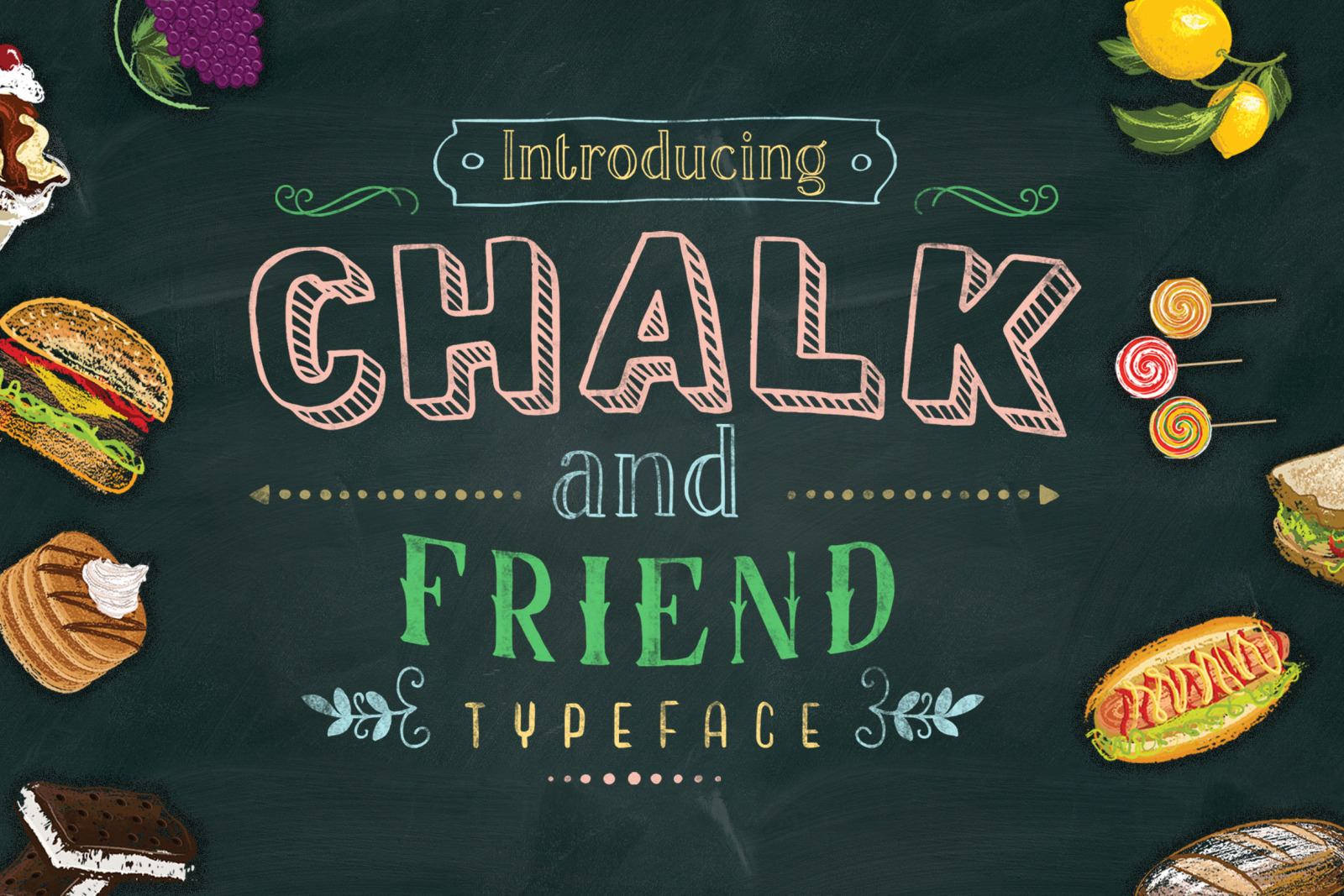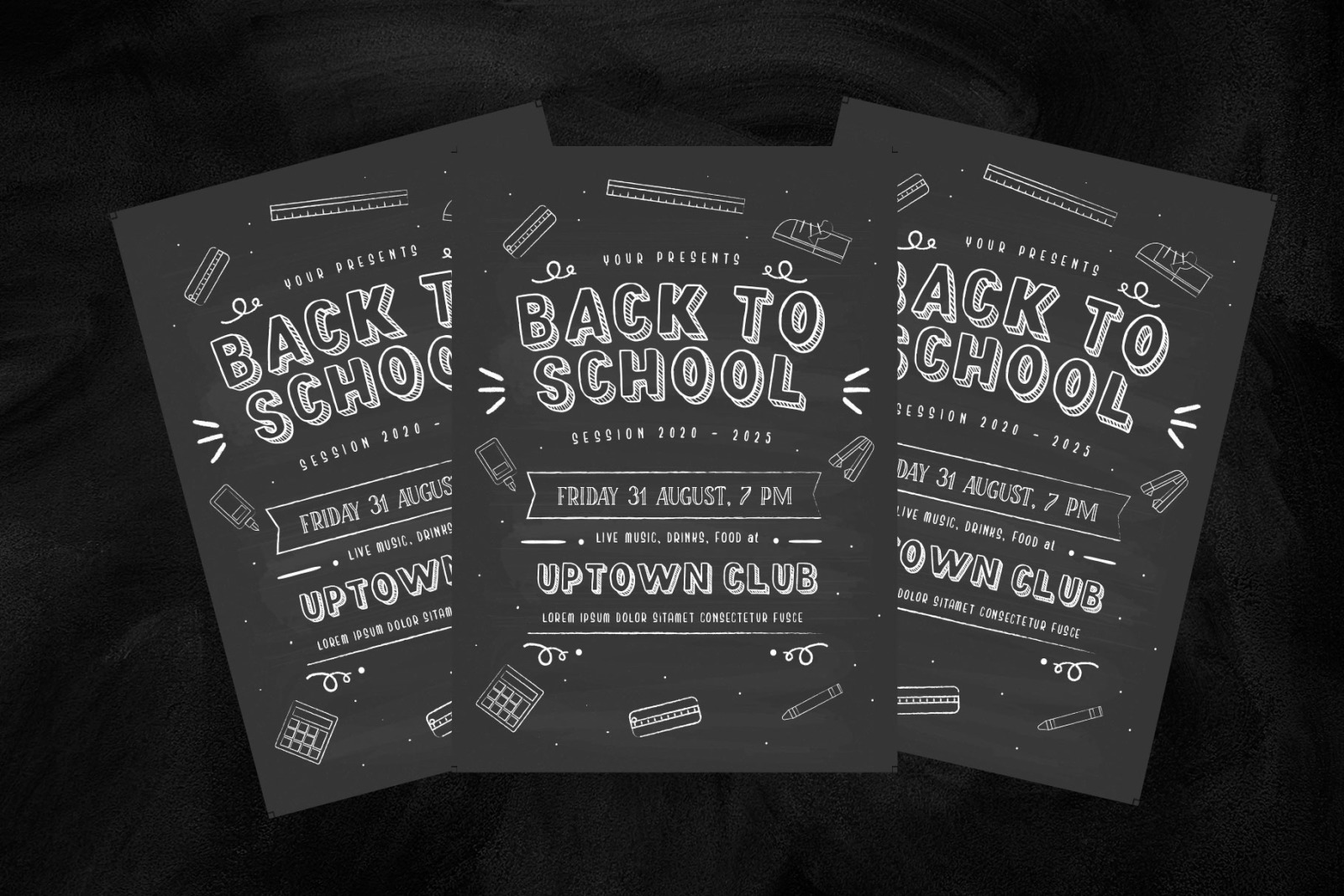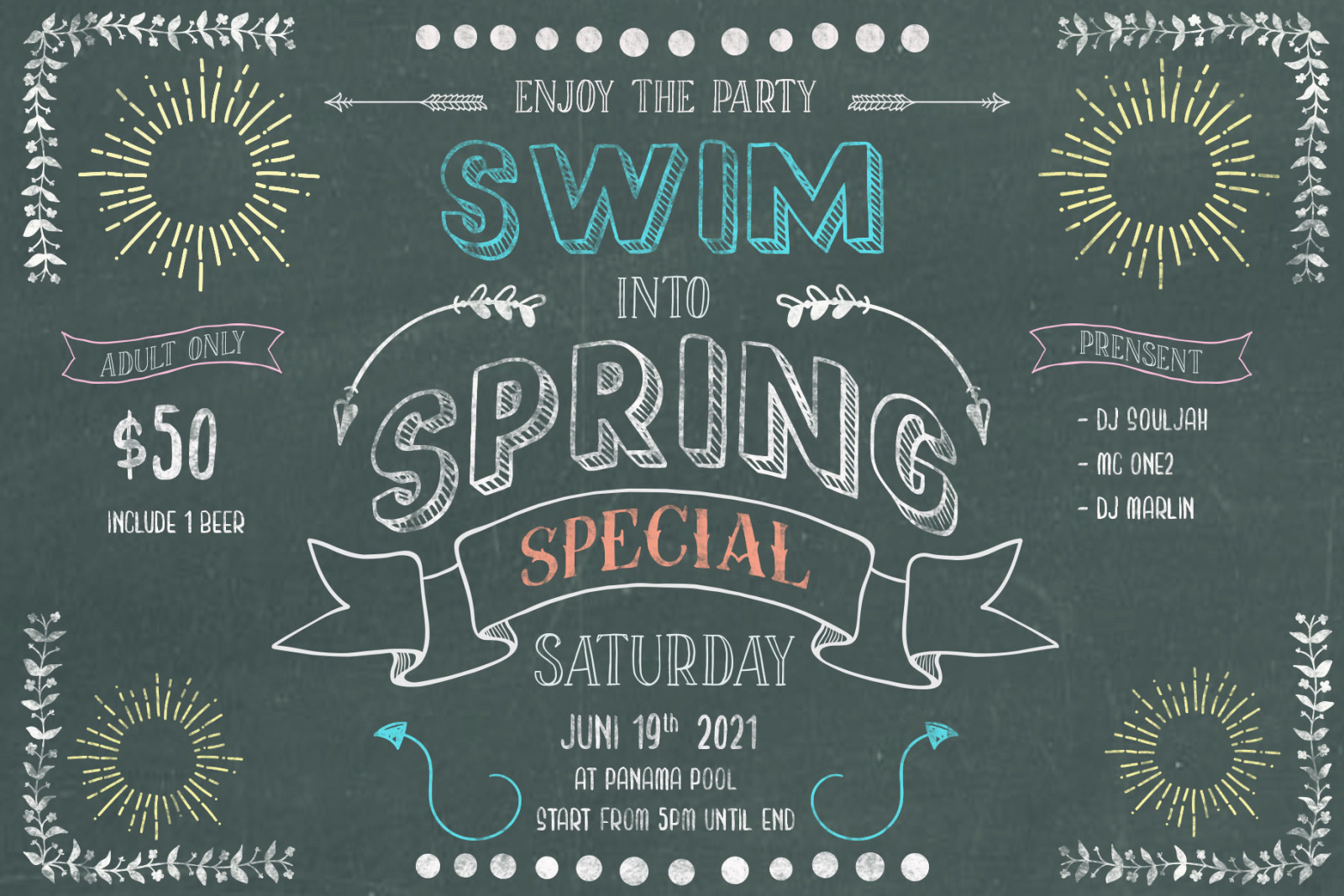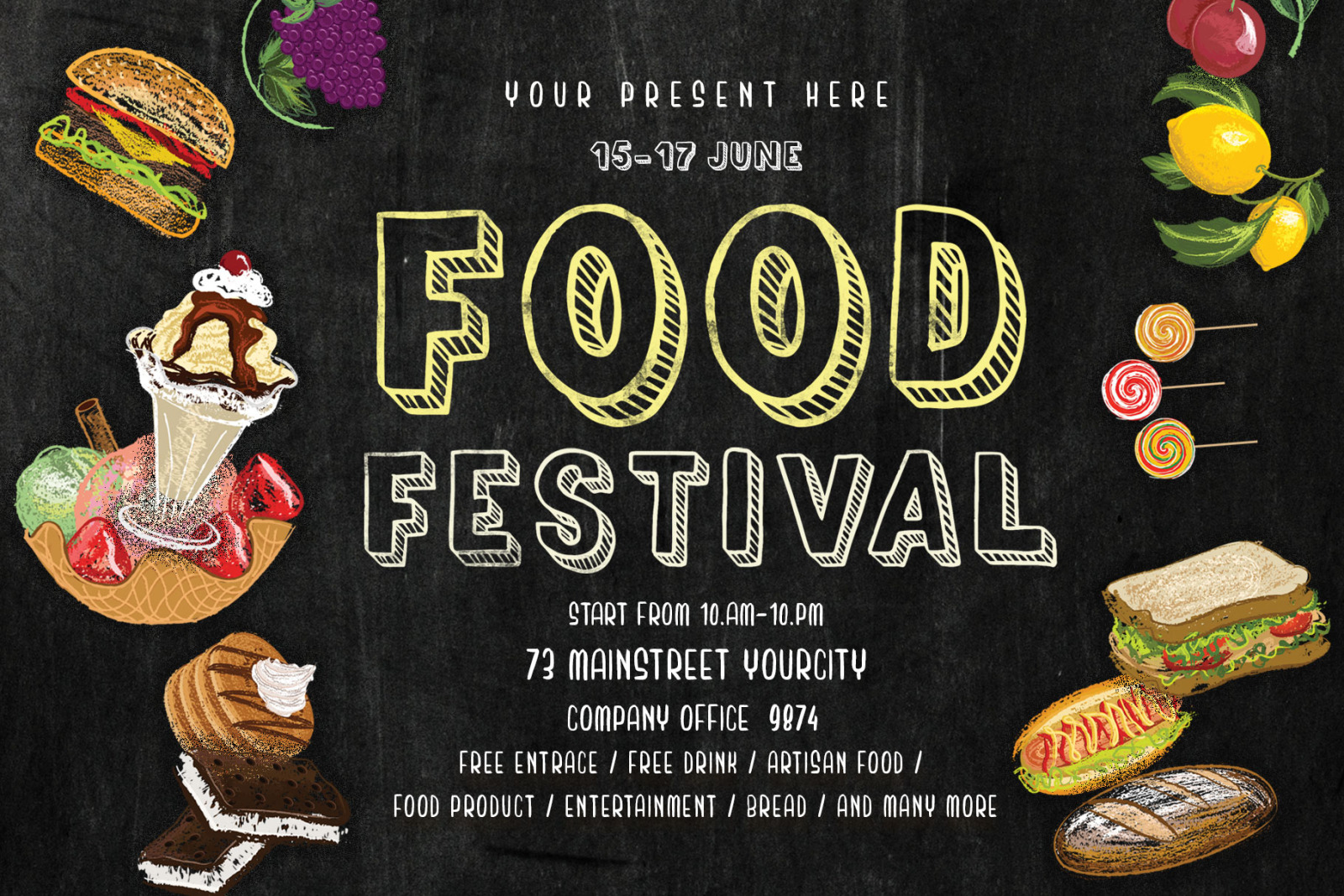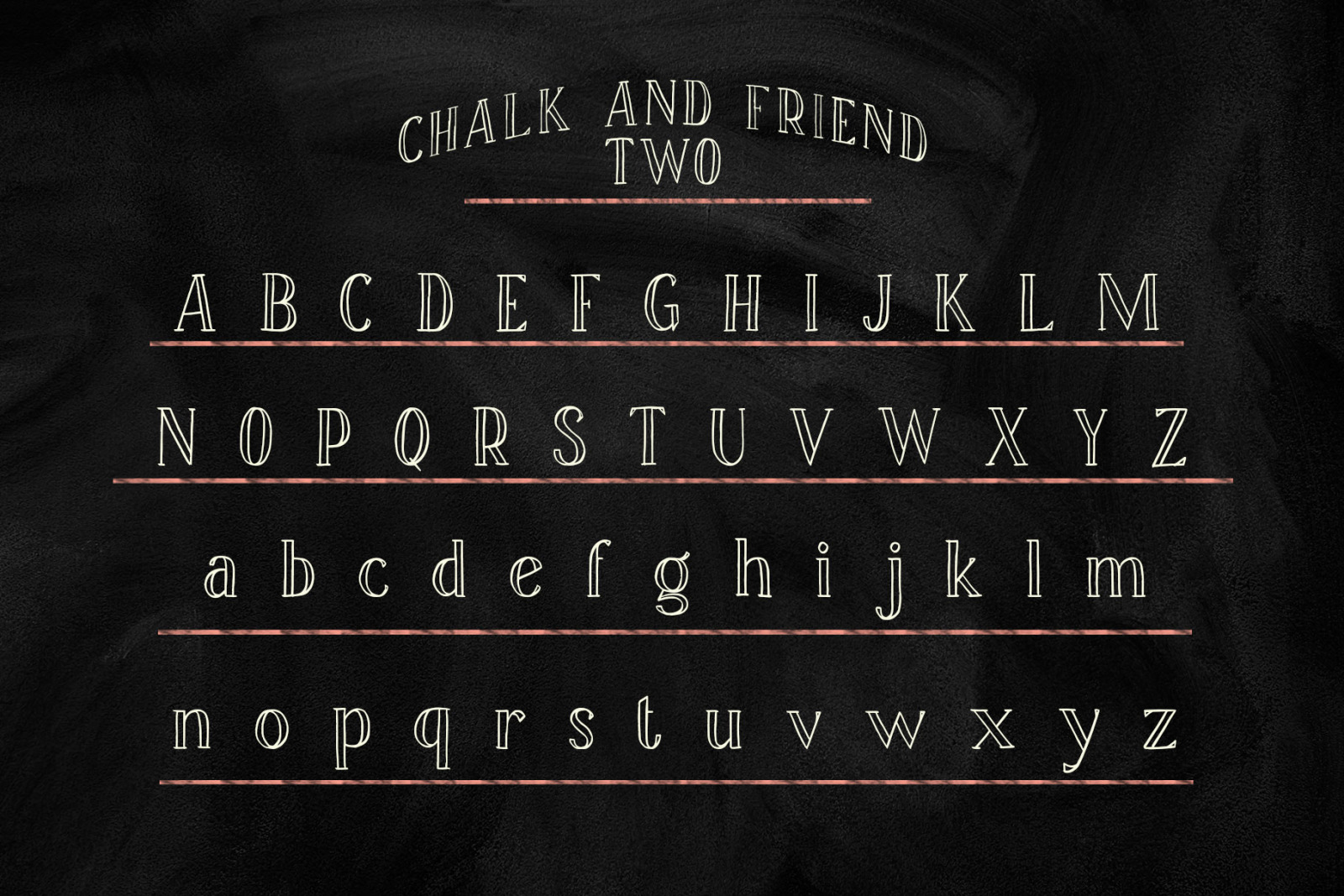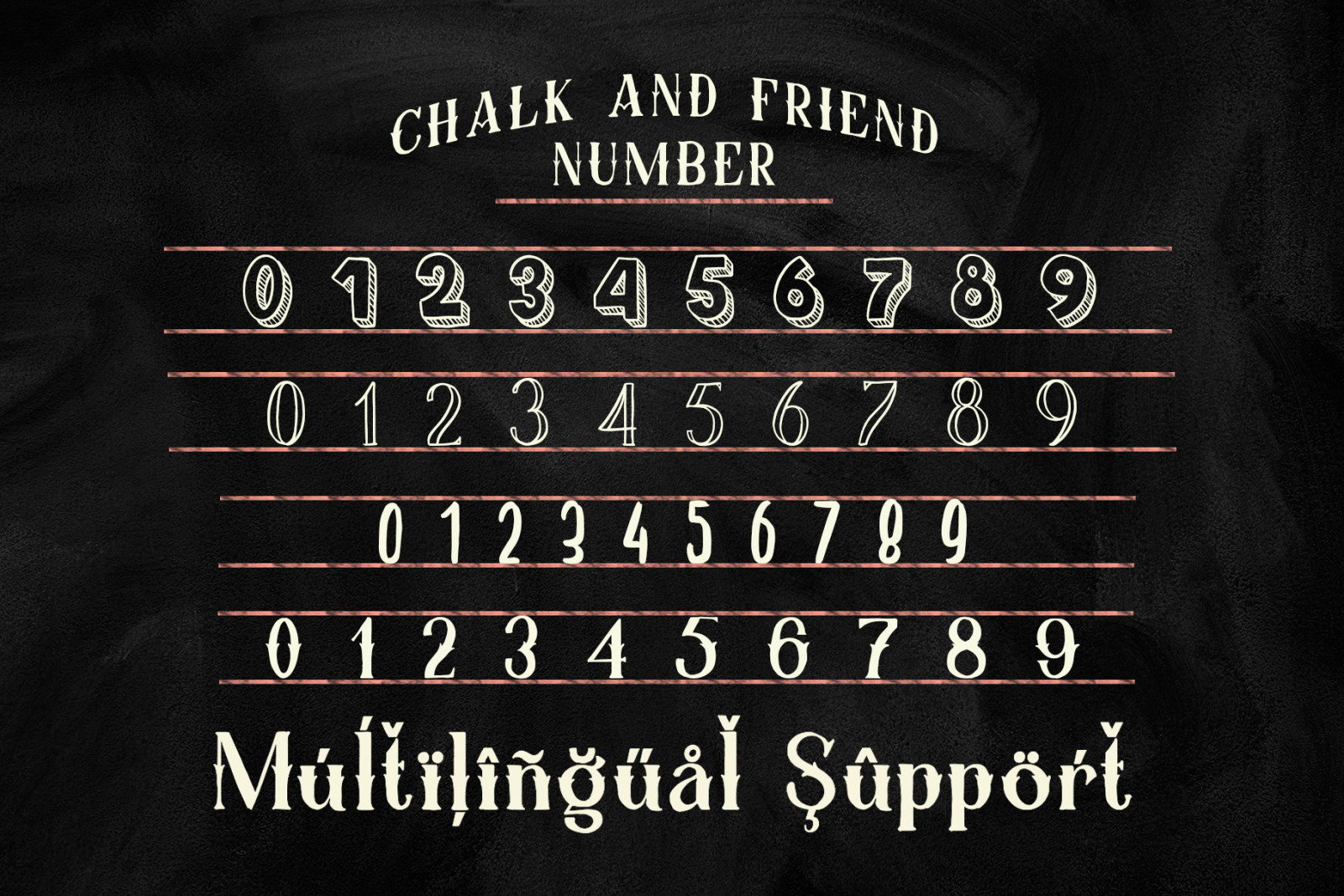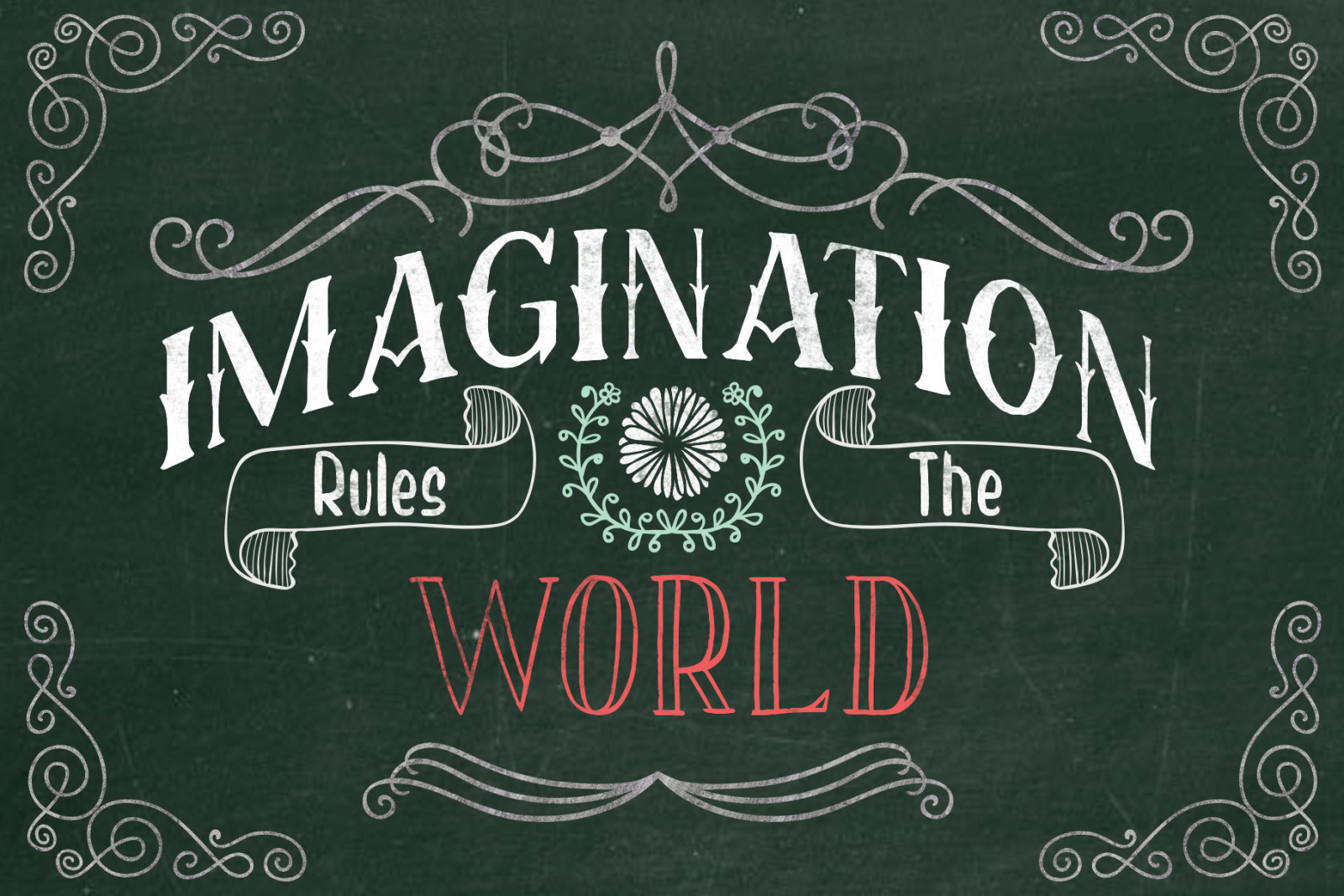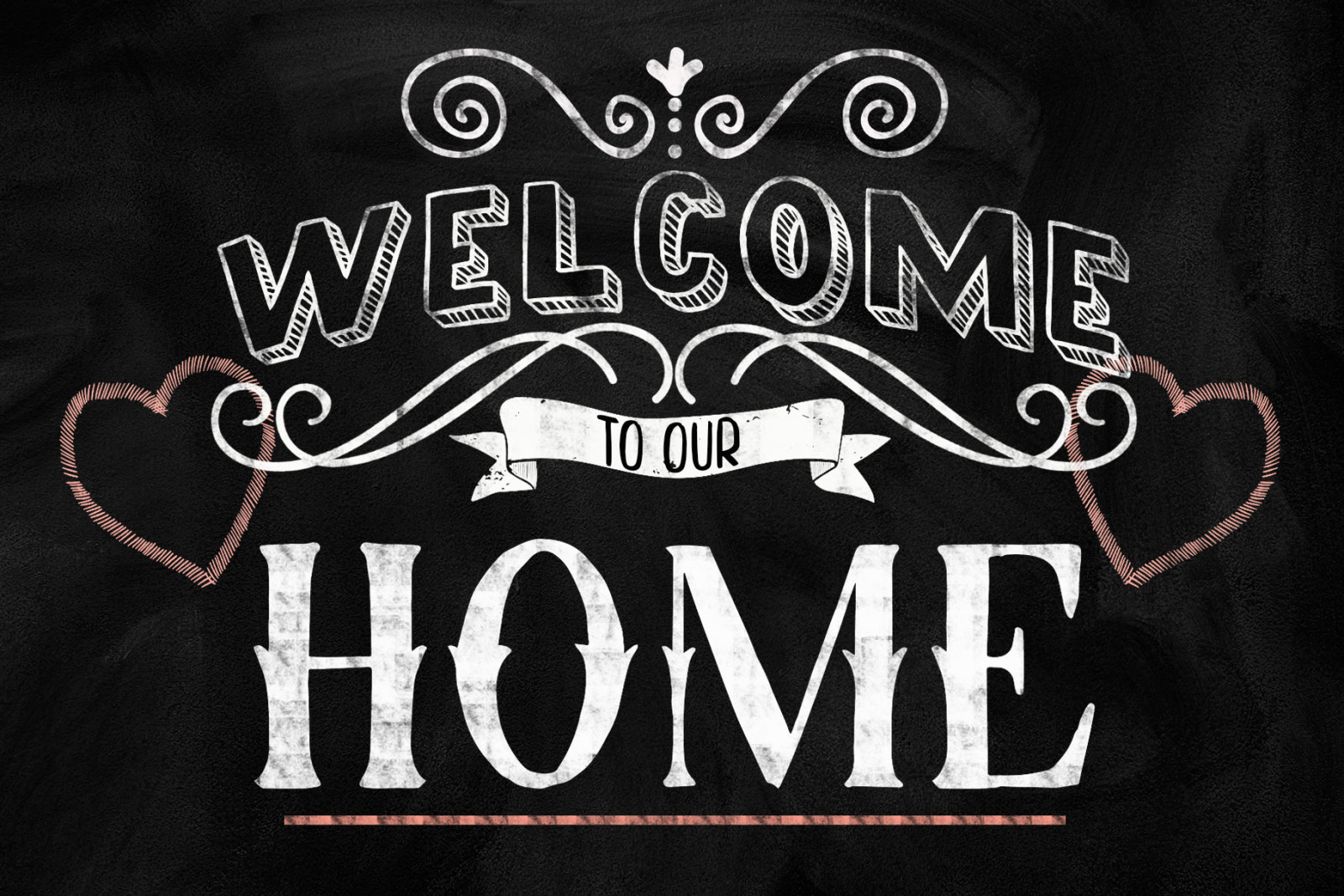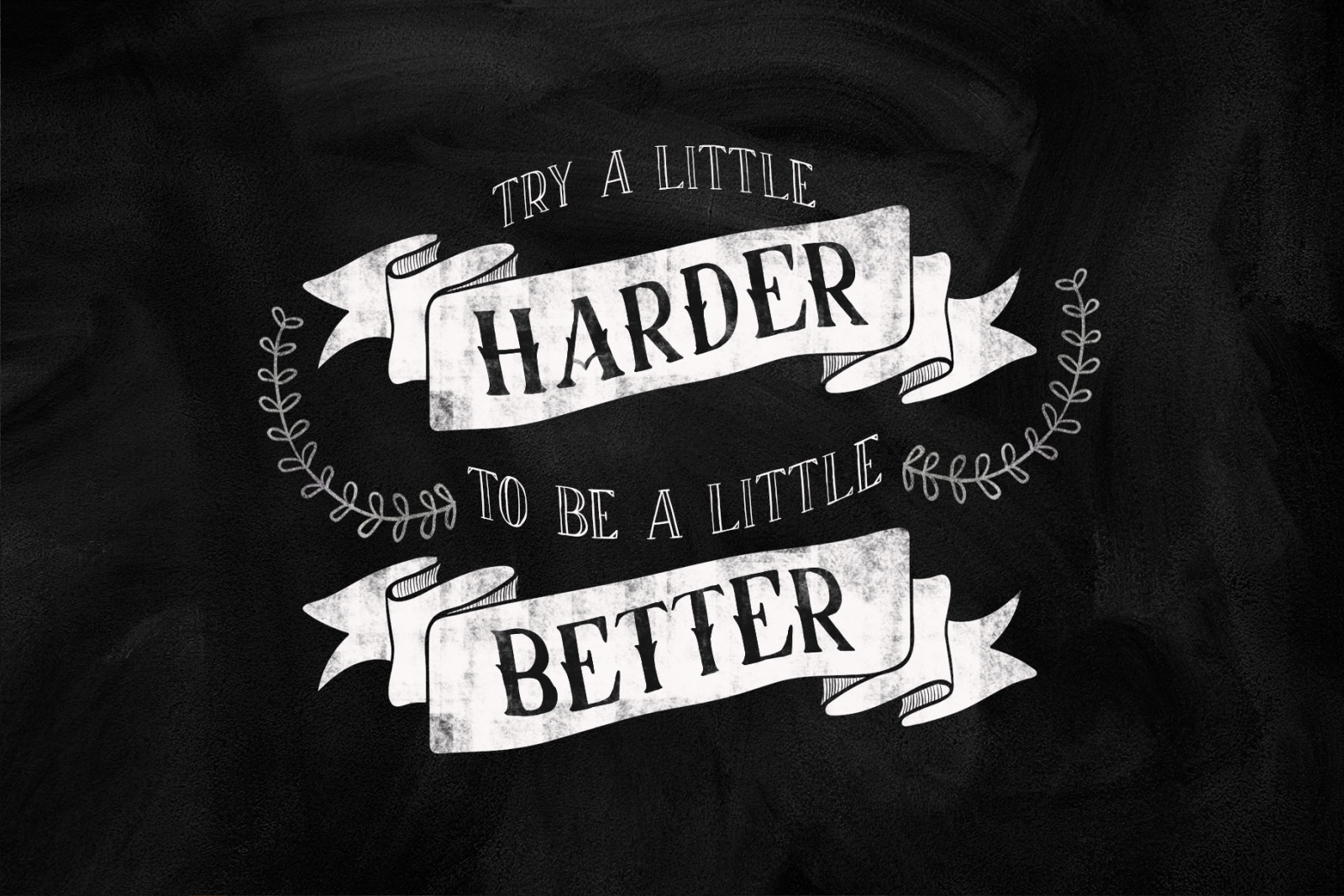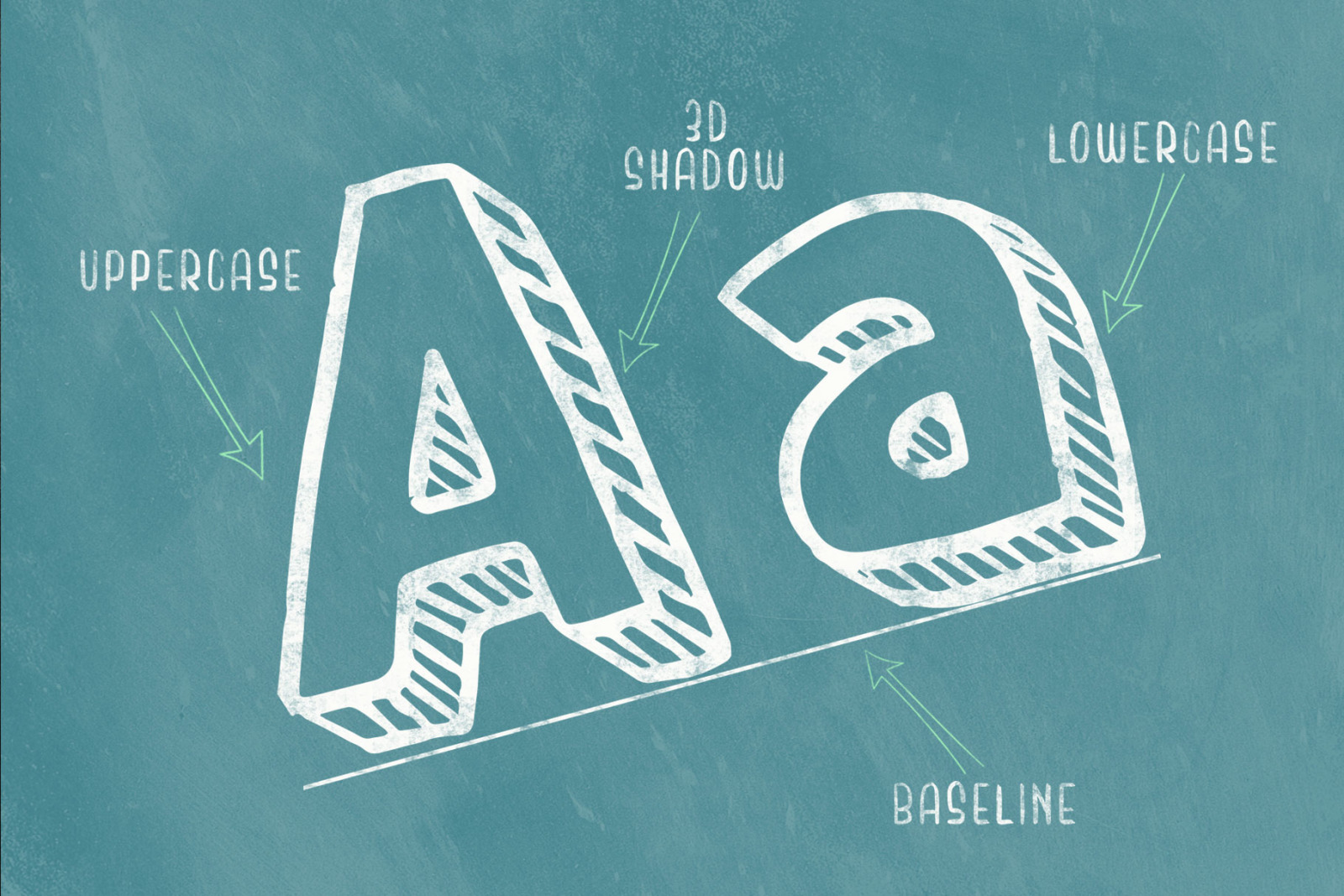
Chalk and Friend Font
Introducing Chalk and Friend Typeface
Chalk and Friend Typeface is a font inspired by writing on a blackboard. This font is very cool and can be mixed and matched with any ornament you like. Chalk and Friend has 4 unique and expressive font families, very easy to use and combine according to your wishes.
Chalk and Friend Typeface is suitable for blackboard menu design, book menus, sign boards and so on.